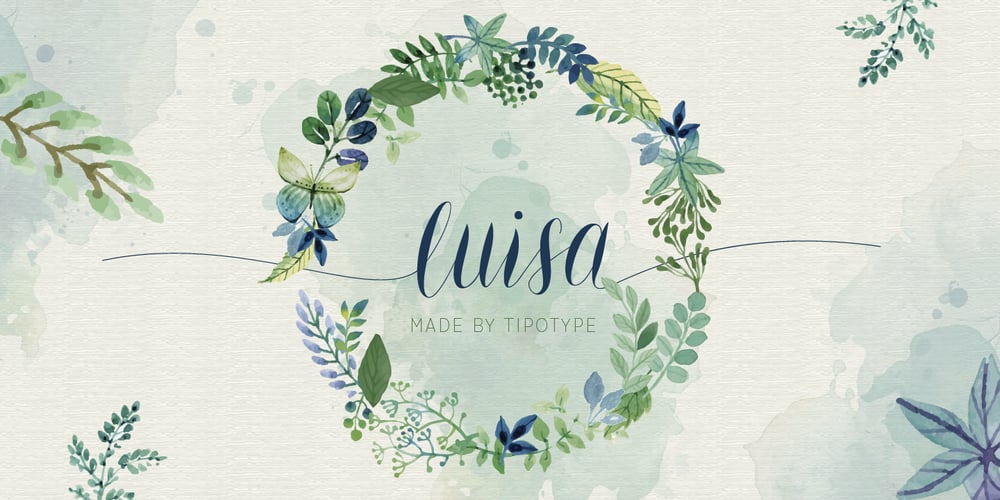
Luisa
Luisa font
Luisa Font Family was designed by Fernanda Núñez and published by TipoType. Luisa contains 2 styles and family package options. Luisa is a typeface with two weights: regular and inline. Its design responds to the calligraphic principle of pressure. It combines the elegant qualities of the calligraphy with the unstructured and informal layouts of modernity. It is suitable for striking composition in words and short sentences and for shaping dense and deep textures when applied into paragraphs.